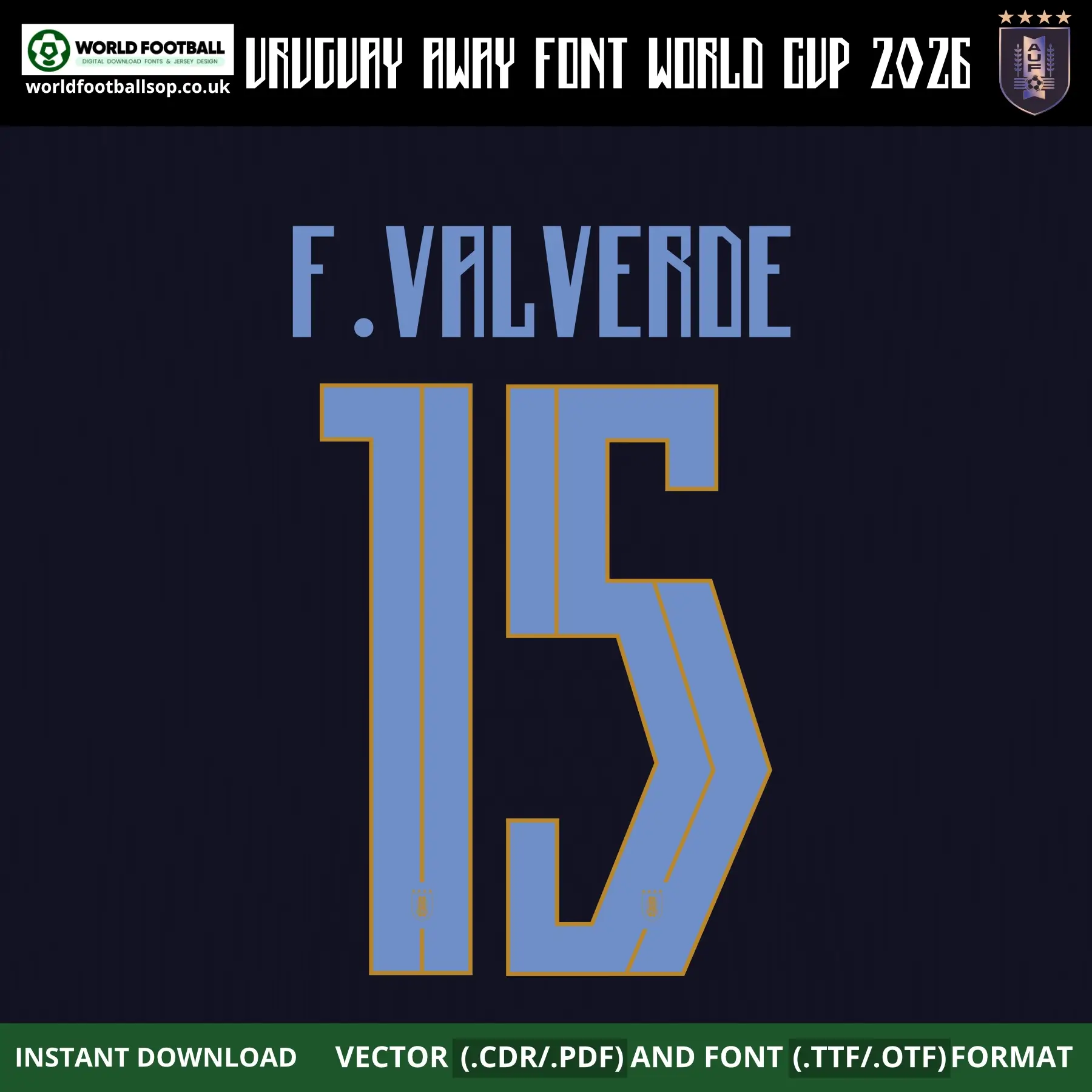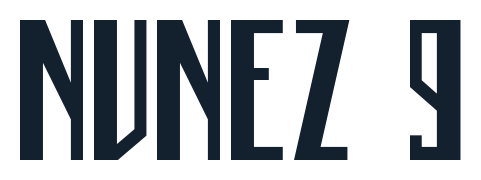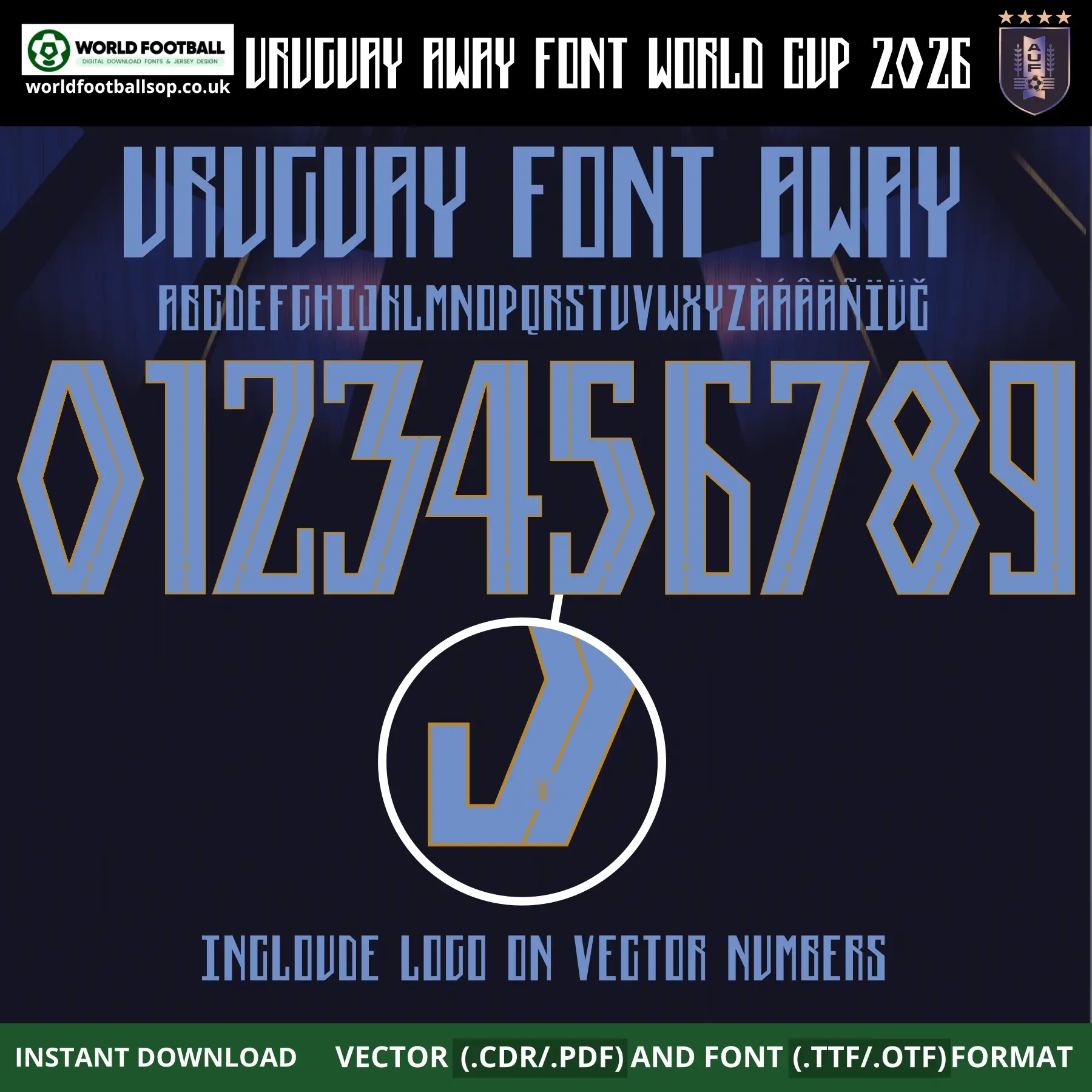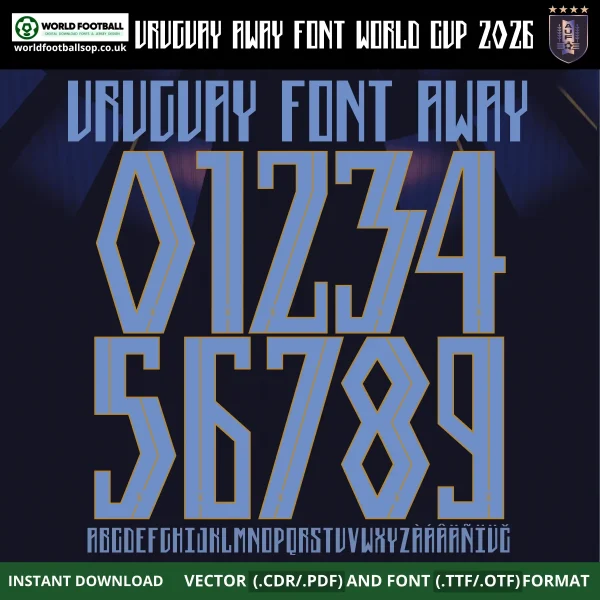
Uruguay Away Font World Cup 2026 - Official‑style Jersey Typography
This Uruguay Away Font World Cup 2026 kit recreates the bold, angular lettering used on Uruguay's dark navy away shirts Nike for the 2026 FIFA World Cup in USA, Mexico and Canada. The tall, geometric numbers and narrow condensed letters feature a striking sky blue fill with gold inner-line detail running through each character, giving the font football a sharp, modern identity that perfectly captures the unique style of Uruguay's official away kit typography. It is perfect for fans, designers and printers who want authentic‑looking names and numbers on custom Uruguay kits and football graphics.
The font is supplied in both desktop formats (TTF/OTF) and scalable vector files so you can work comfortably in your favourite design software. The sky blue lettering with gold accent lines on a deep dark navy background seen in the previews mirrors Uruguay's official away colour palette, making your mockups and prints look match‑ready. Every vector number includes the embedded AUF (Asociación Uruguaya de Fútbol) crest logo for maximum authenticity.
Full uppercase alphabet A-Z and numbers 0-9 with extended Latin accents (À, Á, Â, Ã, Ñ, Ï, Ü, Č)
Preview layouts showing complete number set and example name/number combo - F. VALVERDE 15
World Cup accuracy: Inspired by the exclusive Uruguay Away Font World Cup 2026, not a generic typeface
High legibility: Bold, angular geometric forms with gold inner lines keep numbers clear on both TV and print designs while maintaining Uruguay's unique away identity
Whether you are designing a full squad of custom Uruguay shirts or a single fan jersey with your own name and number, this Uruguay Away Font World Cup 2026 gives your project a professional, on‑pitch look.